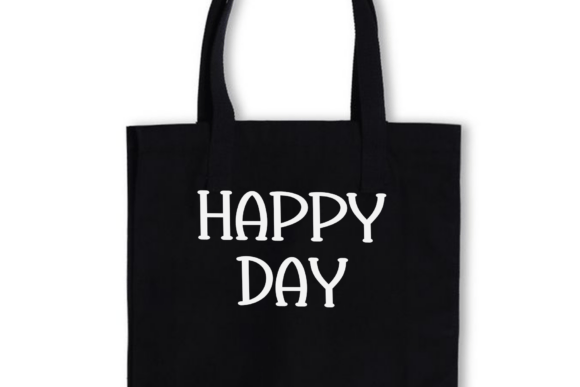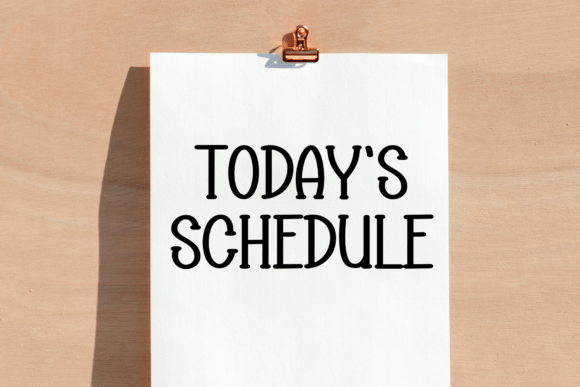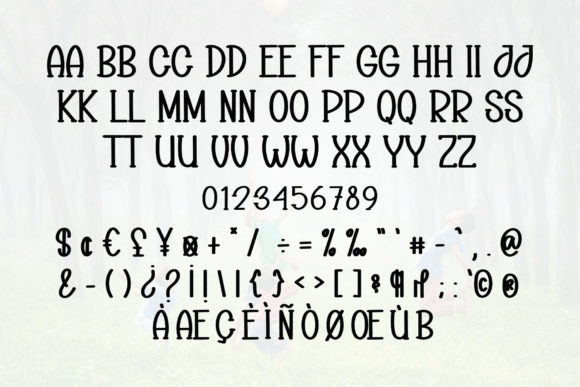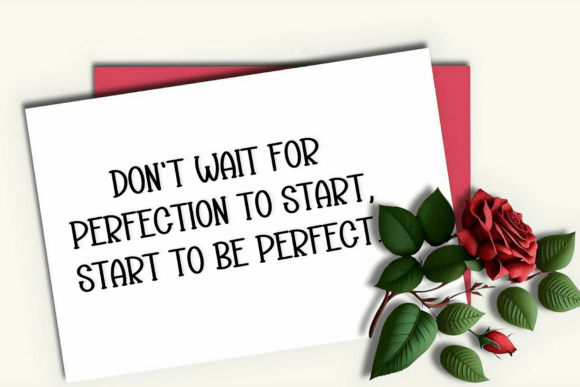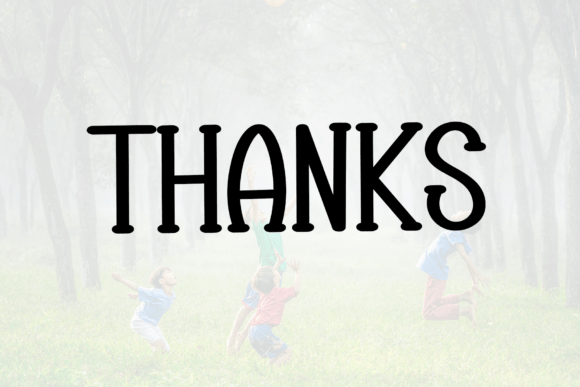
The Delightful Children Font: A Designer’s New Best Friend
I’ll never forget the time I was working on a project for a children’s party invitation. I had the design all planned out, but I just couldn’t find the right font to bring it all together. The invitation needed to be playful, yet elegant, and I wanted it to stand out. That’s when I stumbled upon the Children font, a delicate handwritten font that has since become a staple in my design toolkit.
So, what makes the Children font so special? Let’s dive into the good stuff and a few quirks I’ve discovered.
- ✨ The font’s unique, handwritten feel adds a touch of warmth and personality to any design.
- ✅ It’s incredibly versatile, making it perfect for a wide range of projects, from letters and invitations to food products and titles.
- 🎉 The font comes with a range of OpenType features, including glyphs and stylistic alternates, which allow for endless creativity.
While the Children font is amazing, there are a few things to keep in mind:
- ⚠️ Some of the letters may appear a bit delicate or thin, which can make them harder to read in smaller sizes.
- 🤔 The font’s playful nature may not be suitable for more formal or corporate designs.
The Backstory Behind the Children Font
The Children font was carefully crafted by a talented designer who wanted to create a font that would bring a touch of whimsy and playfulness to any design. Inspired by the beauty of handwritten letters, the designer poured their heart and soul into creating a font that would be both elegant and fun.
Q: What type of projects is the Children font best suited for?
A: The Children font is perfect for a wide range of projects, including letters, invitations, food products, titles, and more.
Q: Is the Children font available in different languages?
A: The Children font may not be available in all languages, but it does come with a range of characters and glyphs that can be used to create a variety of languages.